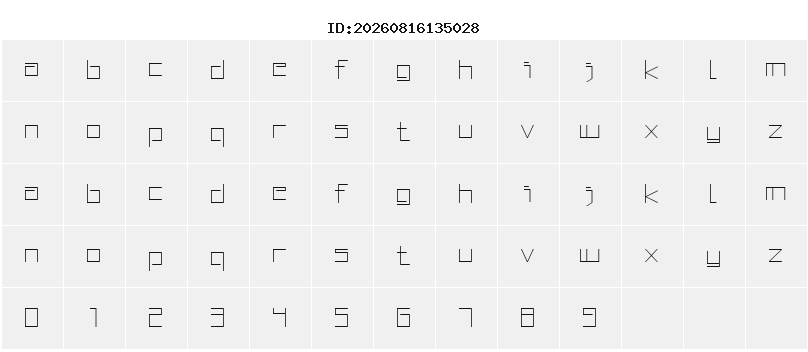
Squared Display Preview
• Font Name: Squared Display
• Full Font Name: Squared Display
• Designer: Vikas Kumar
About Squared Display.ttf
Squared Display.ttf is a modern, elegant sans-serif font designed for ultimate readability and visual harmony. Perfect for branding, headlines, web design, and print materials.